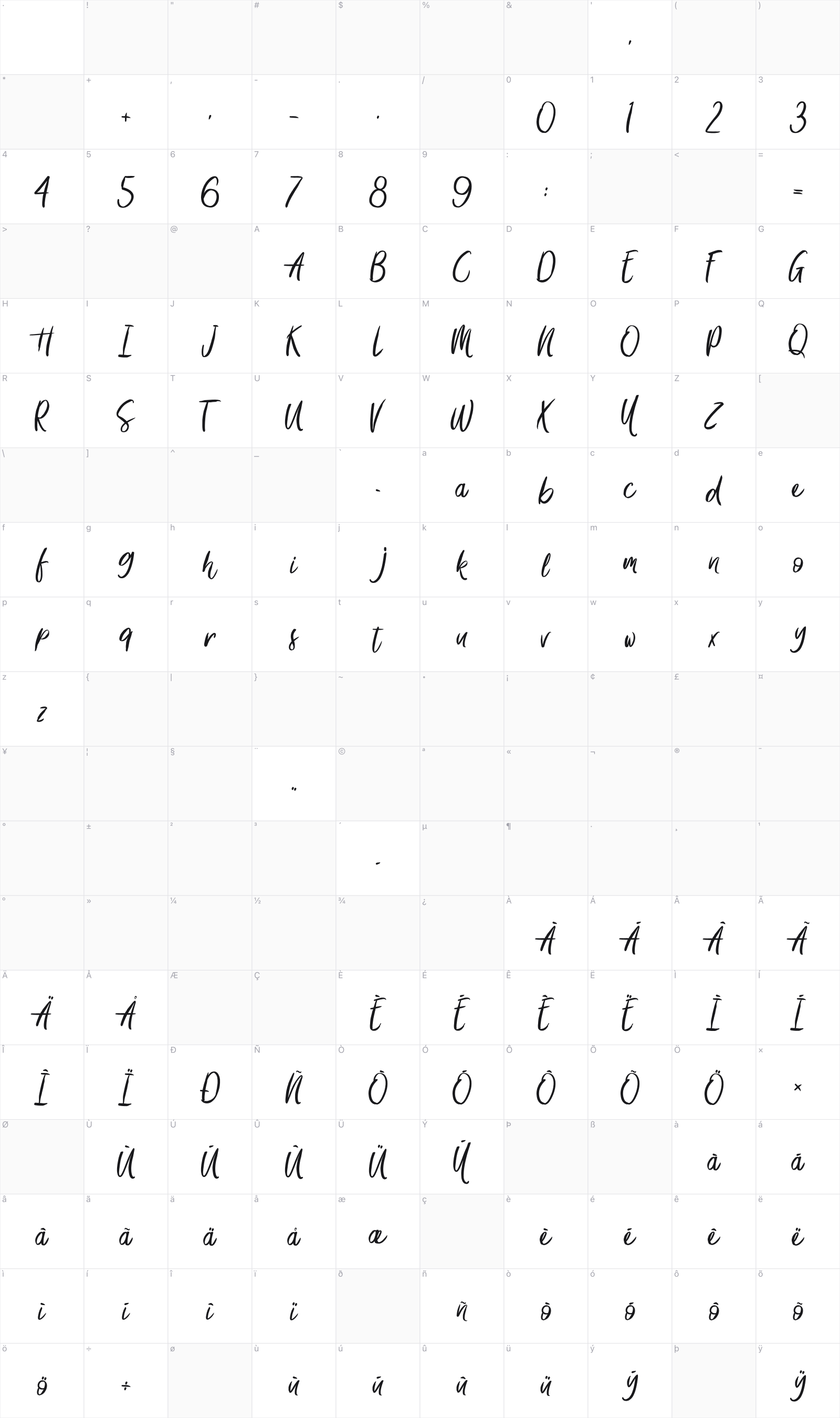
Something in the Night
Something in the Night is a flowing brush script from Thomas Boucherie at Octotype, with graceful, connected strokes that feel both casual and refined. The letterforms carry a feminine elegance without being overly precious, landing naturally on wedding invitations, editorial headers, and lifestyle branding. Its modern calligraphic energy reads best at headline sizes where the brush texture and fluid movement can really come through.